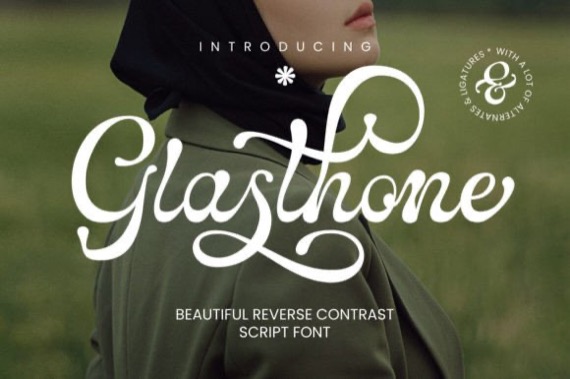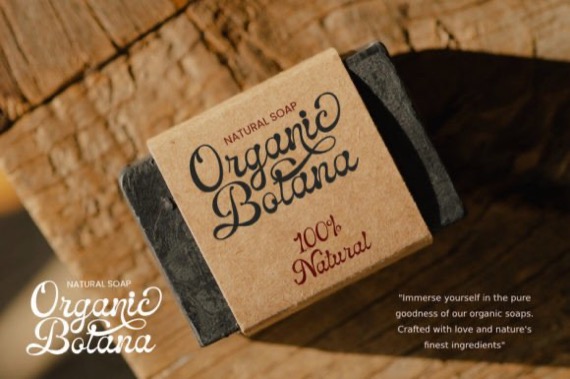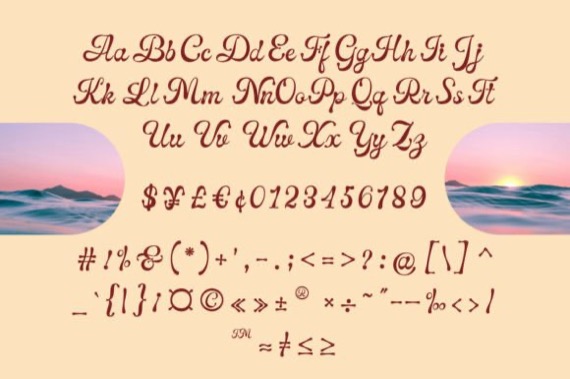
Glasthone is a minimal and luxury script handwritten font that was created by Madjack Font. This typeface is ideal for use in bold watercolor designs or handwritten styles, such as blog titles, posters, wedding elements, t-shirts, clothing, book covers, business cards, greeting cards, branding, merchandise and much more.
Glasthone Display Script Font